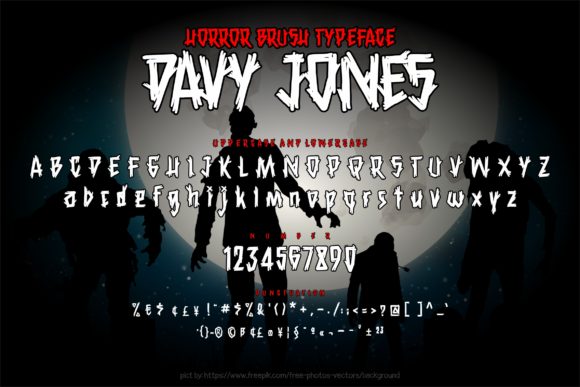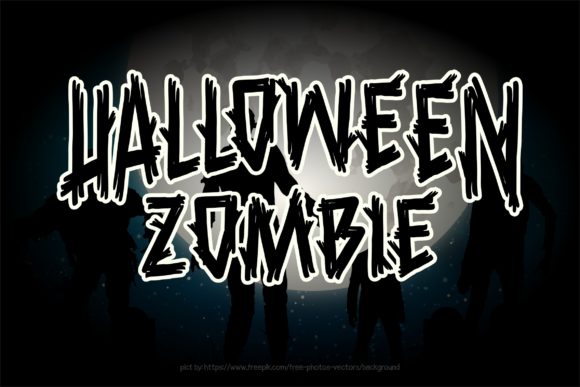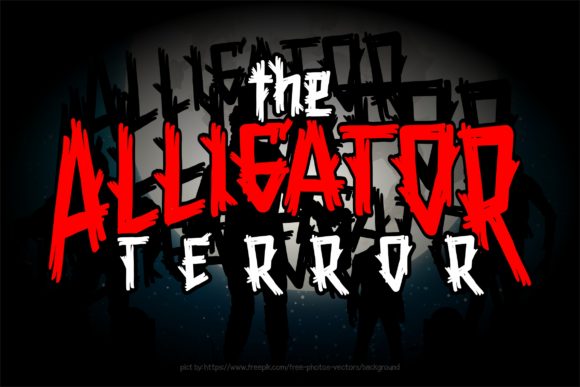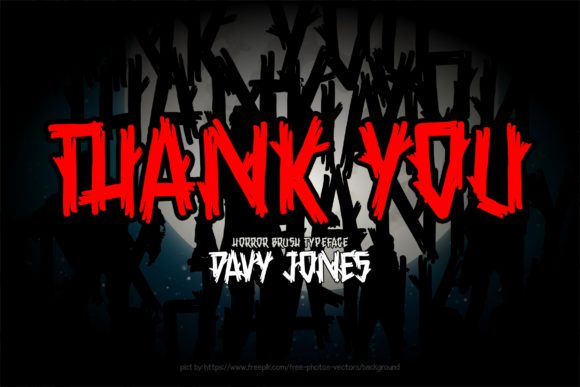
Davy Jones Font
About Davy Jones Font
Davy Jones is a powerful brush font. It features strong and textured characters that make it perfect for logos, headlines, posters and much more.